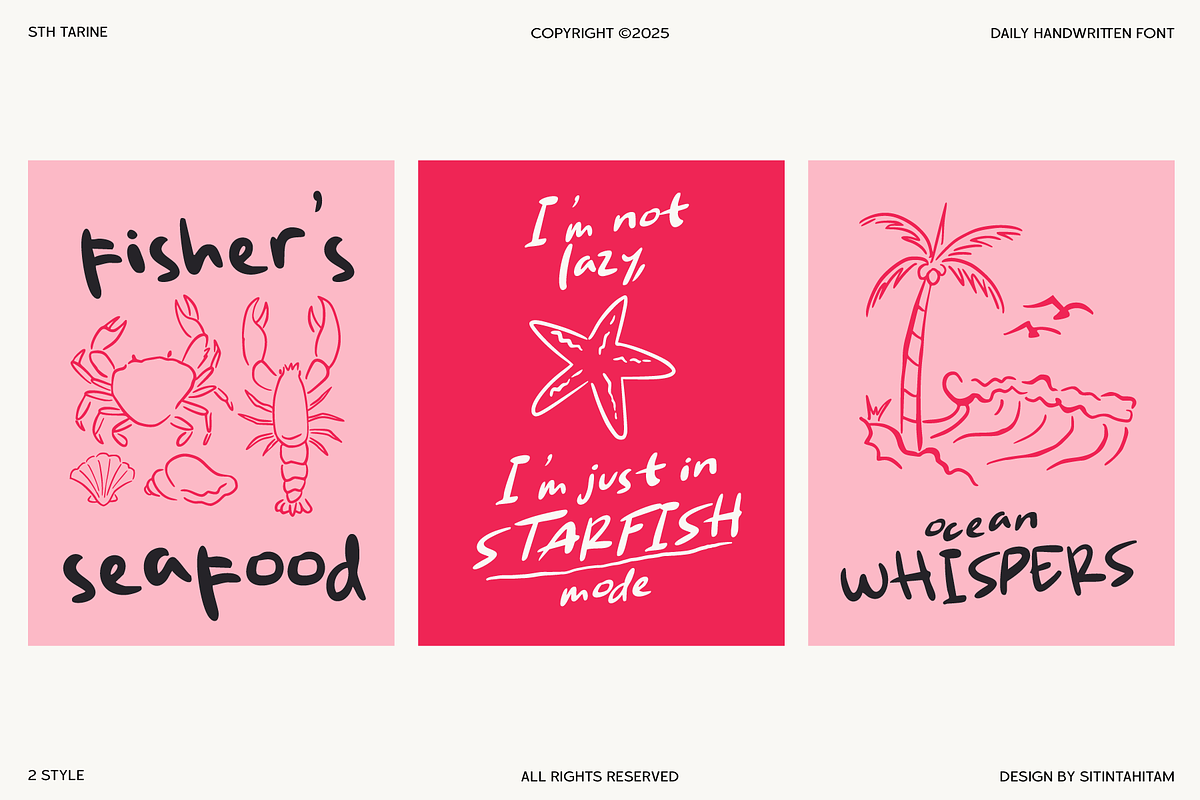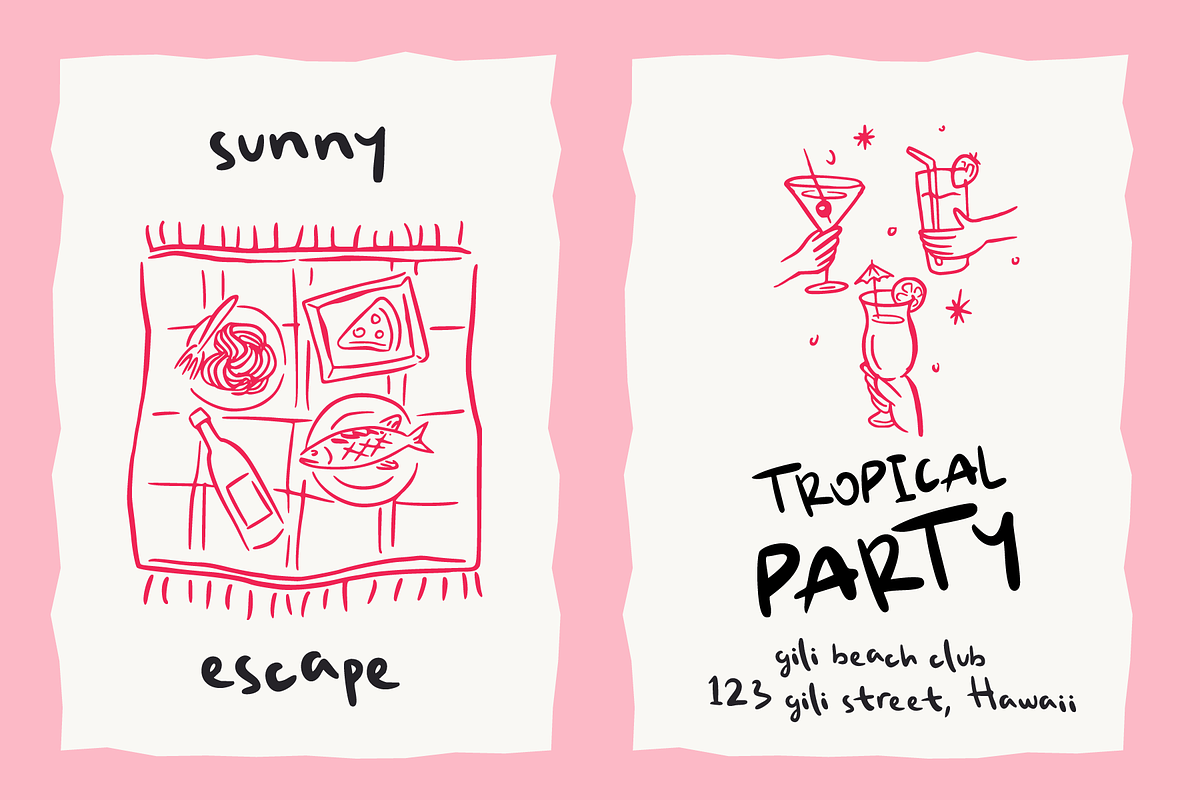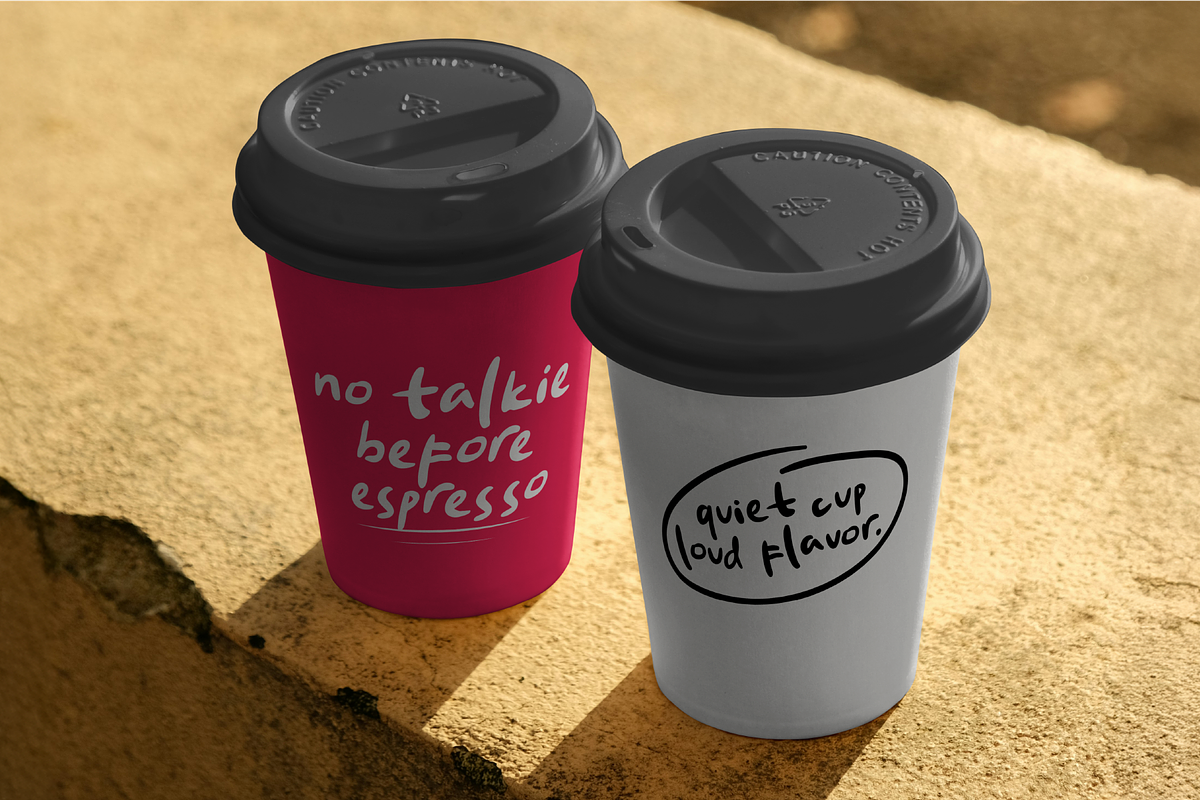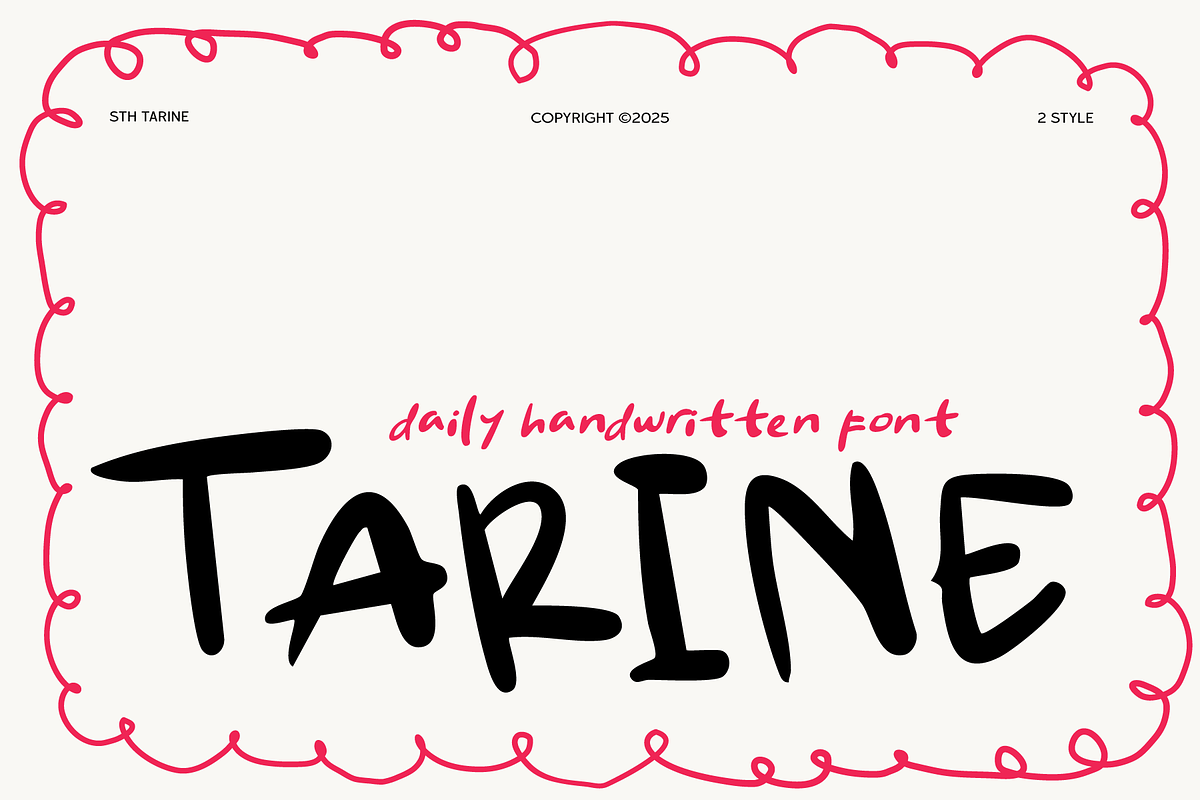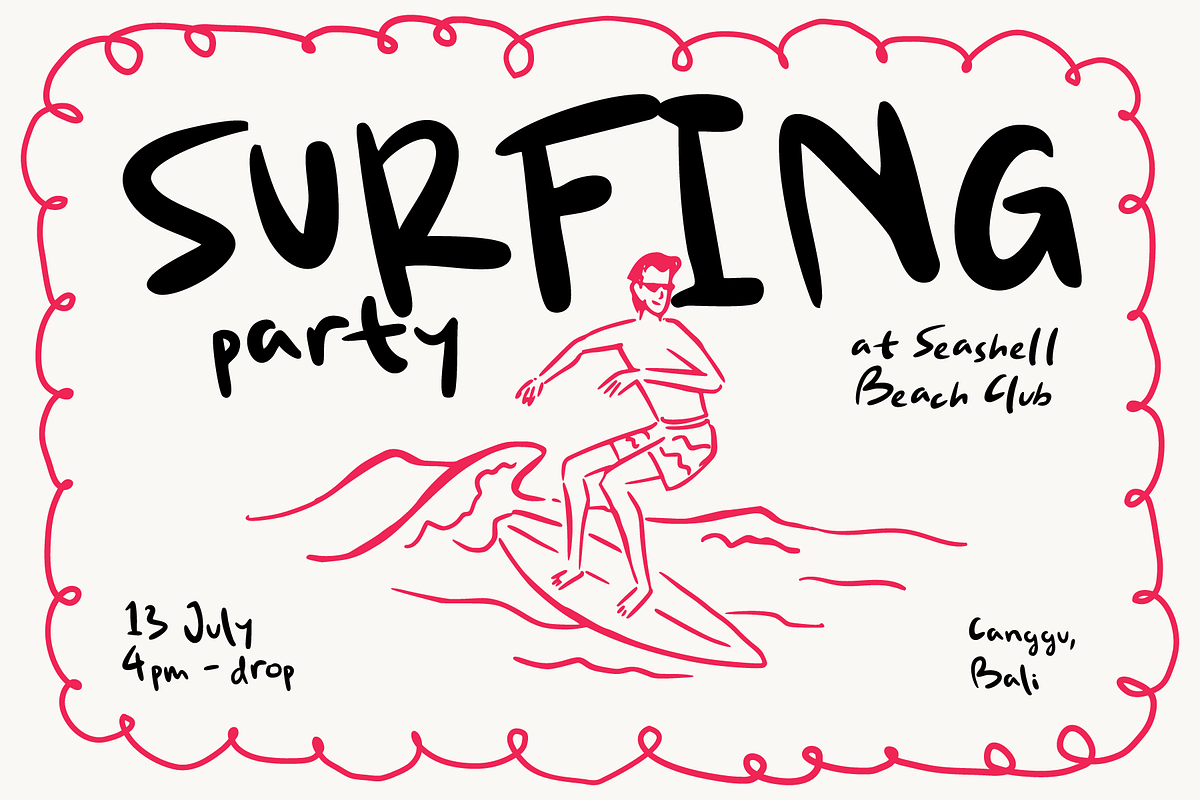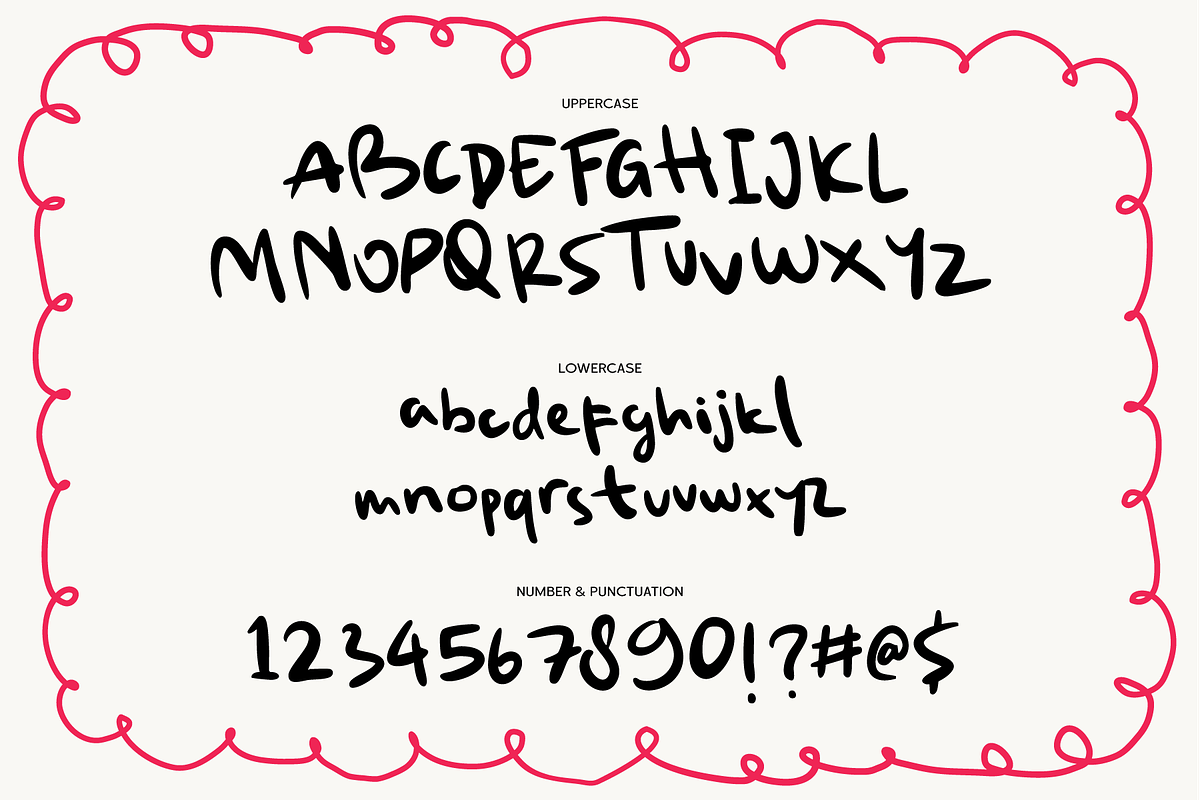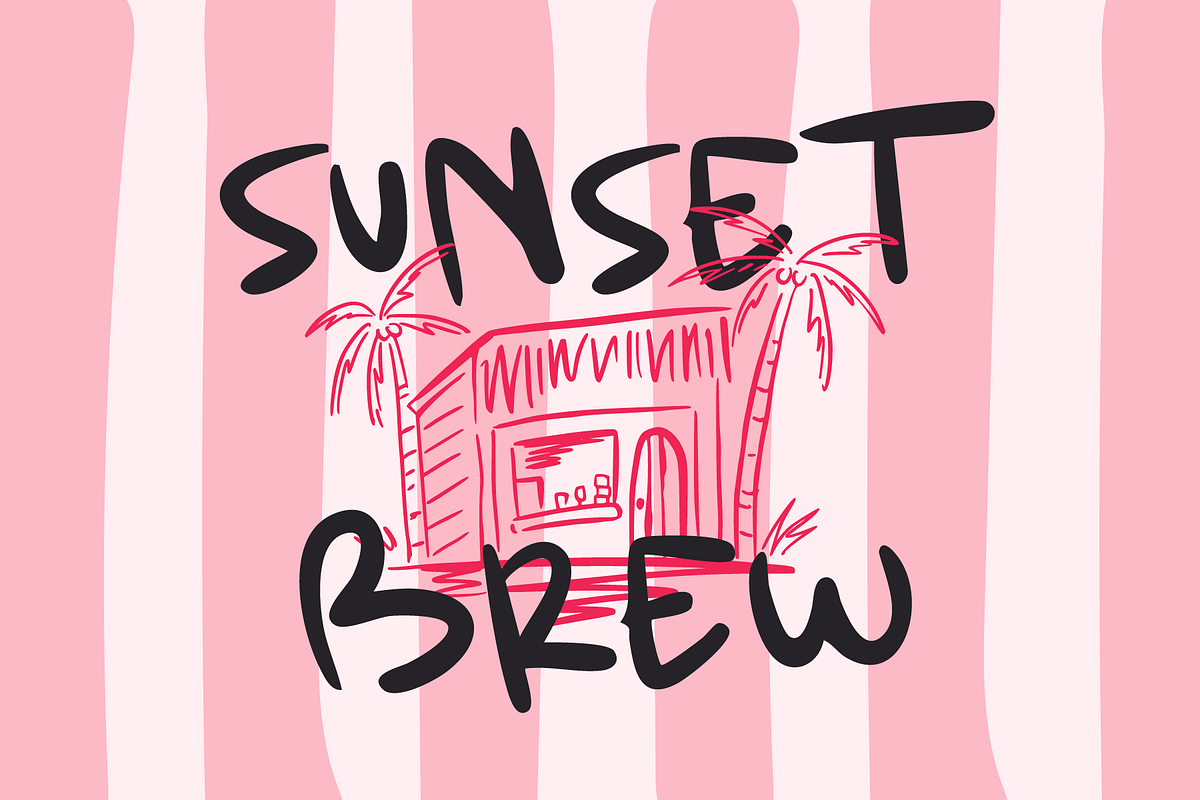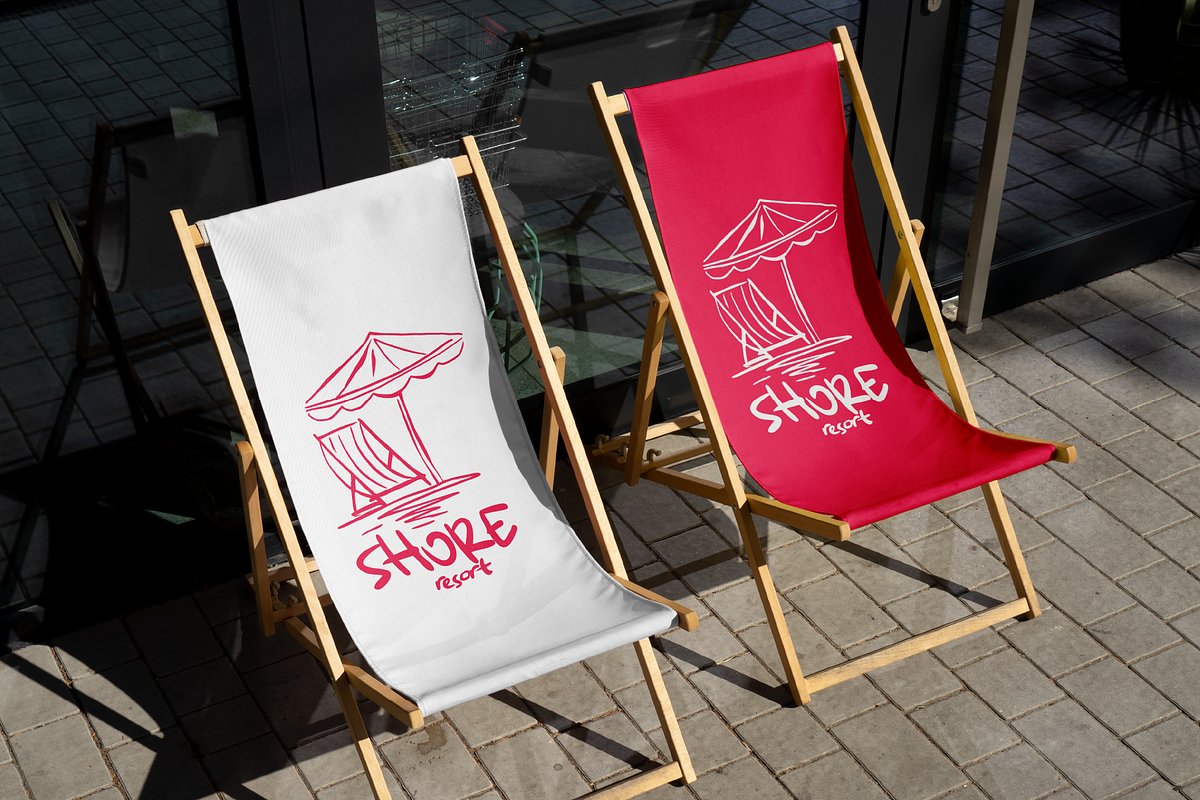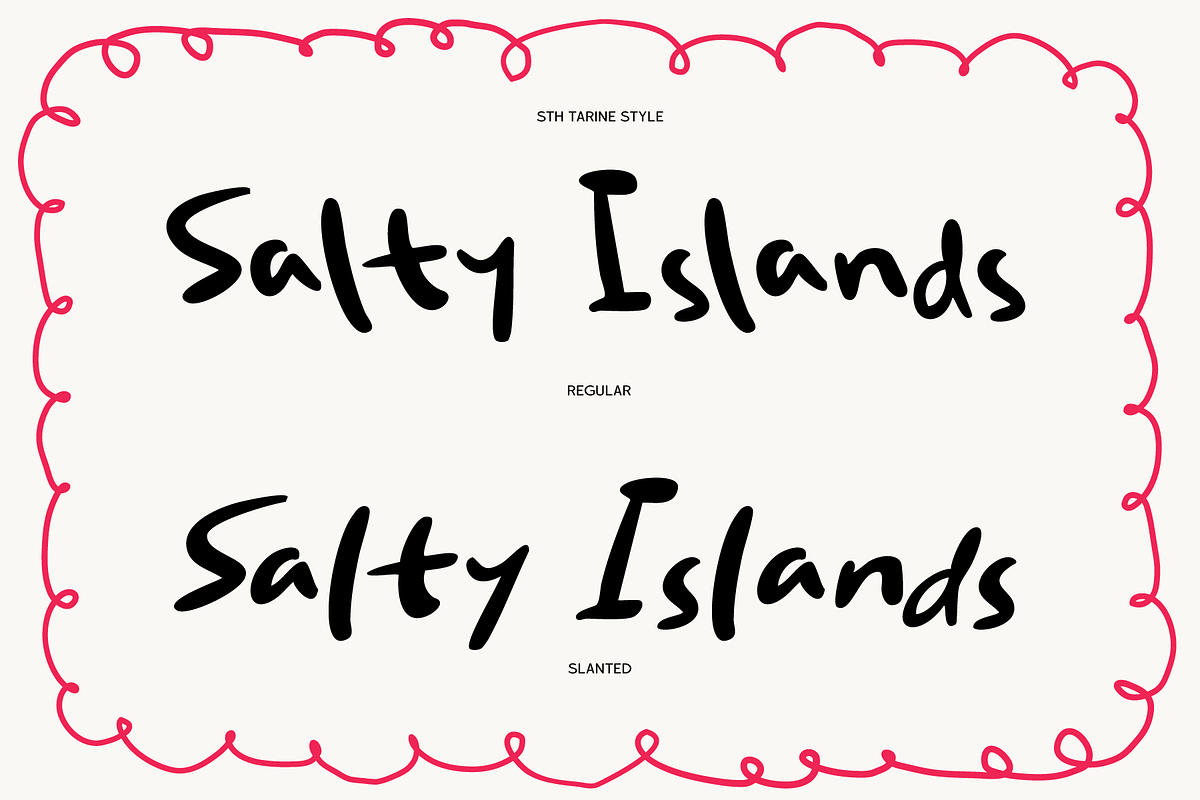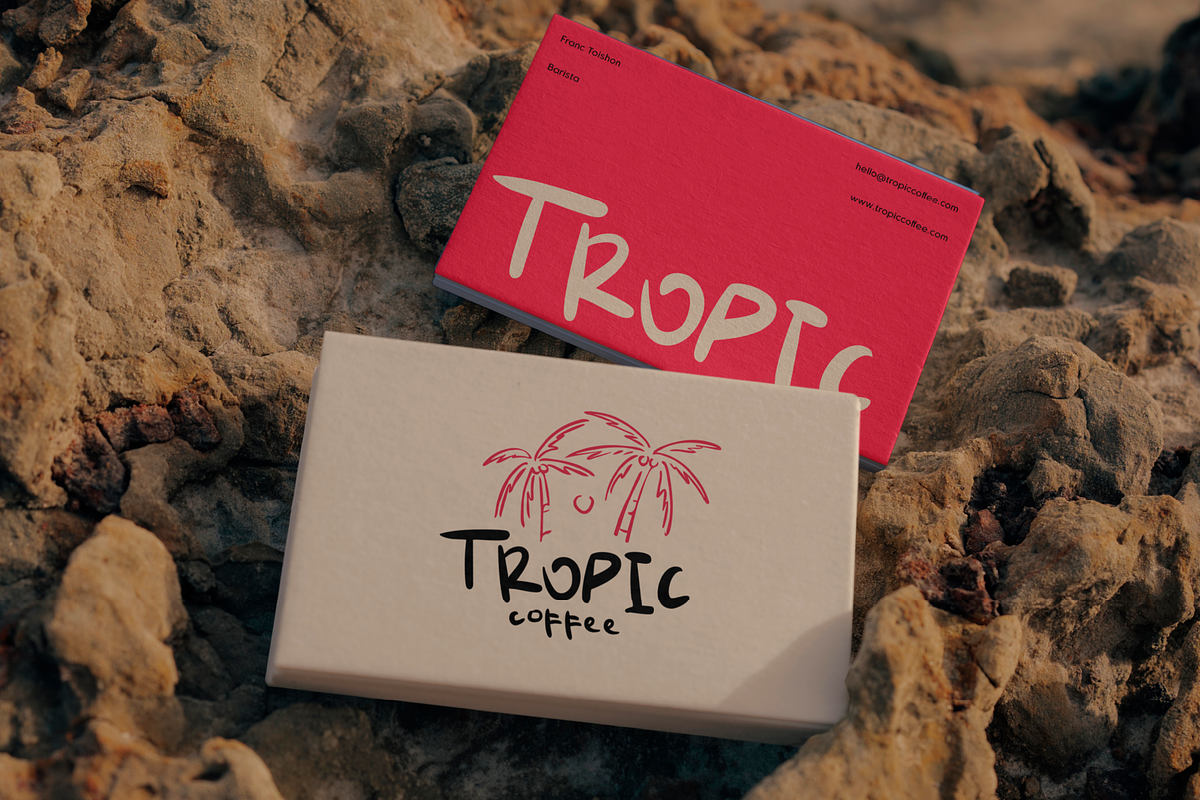
STH Tarine
STH TARINE – Daily Handwritten Font STH TARINE is a casual handwritten font full of character and charm. Designed to bring a personal and friendly touch to your daily design needs, TARINE combines smooth curves with bold strokes — just like writing with a marker on paper. With 2 styles regular and slanted, this font offers flexibility for both playful and professional projects. It’s perfect for journals, quotes, posters, packaging, branding, and social media content. TARINE adds a warm, human, and approachable feeling to any layout.